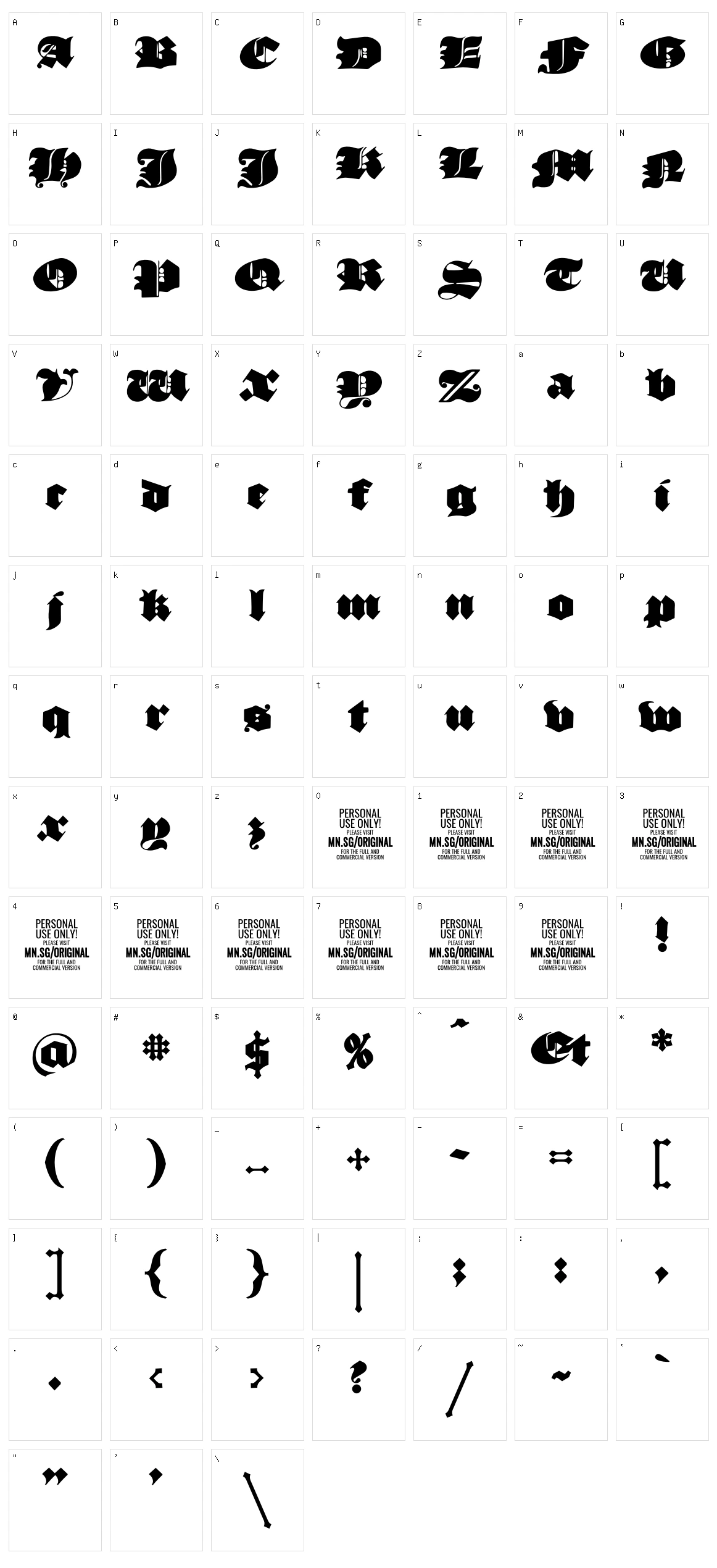
Original Black
Designed by: Mans Greback
Original is an extra-bold blackletter typeface.
Put together and refined by Mans Greback between 2018 and 2021, this Old-English style lettering is drawn according to historical literature on Gothic script. As a Germanic texture type, it has big capitals and black calligraphy strokes, a geometric contour with decorative details, as well as styles of shadow and shade.
Use it for a logotype or in a medieval context where you want a genuine, yet legible, typography.
The font is built with OpenType functionality and has a guaranteed top-notch quality.
It has extensive lingual support, covering all Latin-based languages, from North Europa to South Africa, from America to South-East Asia.
It contains all characters and symbols you'll ever need, including all punctuation and numbers.